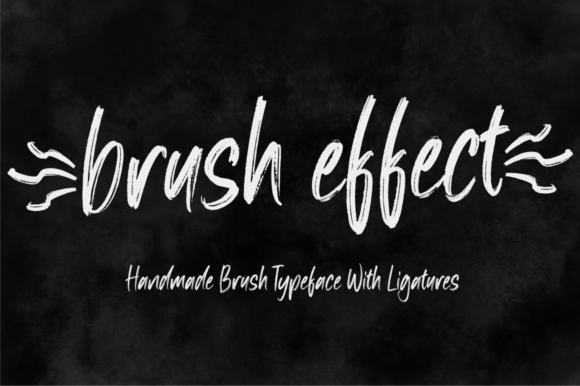
The Art of Creativity: Bringing Your Ideas to Life with Brush Effect Font
Have you ever stared at a blank canvas, notebook, or screen, waiting for the perfect spark of inspiration to strike? For creatives, those moments of clarity are the ones that make all the difference. And what better way to bring your ideas to life than with the perfect font? Enter the Brush Effect Font, a stunning, hand-drawn font that adds a touch of whimsy and personality to any project.
Whether you’re designing graphics for Instagram, crafting calligraphy scripts for DIY projects, or simply looking to elevate your writing, the Brush Effect Font is the perfect tool to help you achieve your creative vision. Its unique, brushed texture gives your work a human touch that’s impossible to replicate with standard fonts. And for designers, that means endless possibilities for innovation and self-expression.
Key Features of Brush Effect Font
- Unique Characteristics: Unique brush effect design, perfect for creative and artistic purposes
Brush Effect Font Review
Overall, I’m impressed with the creative possibilities of Brush Effect Font. It adds a unique touch to any design project ✨. The brush-like strokes and subtle texture bring an organic feel to text, making it perfect for creative, artistic, or nostalgic projects.
- Unique, artistic aesthetic ✨
- Perfect for creative, artistic, or nostalgic projects
- Easily adaptable for various design styles
- Works well for headings, titles, or body text
- May not be suitable for formal or corporate projects ⚠️
- Text readability can be affected by font size and style
- Some characters may appear inconsistent or irregular
- Not ideal for long blocks of text
While Brush Effect Font has its limitations, it’s a great choice for designers looking to add some personality and creativity to their work. It’s perfect for projects that require a unique, artistic touch, and with some careful planning, it can be used effectively in a variety of design contexts.
Some common use cases for Brush Effect Font include:
– Creating decorative headings and titles
– Adding a touch of whimsy to text-based designs
– Enhancing the visual appeal of digital art
For best results, experiment with different brush styles and settings to achieve a unique look that suits your design needs.